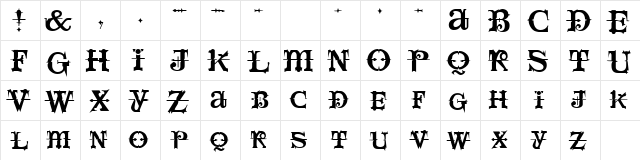
SpaceIvey Regular
SpaceIvey Family
Design Context for SpaceIvey
SpaceIvey is a composed and adaptable typeface that performs quietly and consistently across a wide range of design contexts.